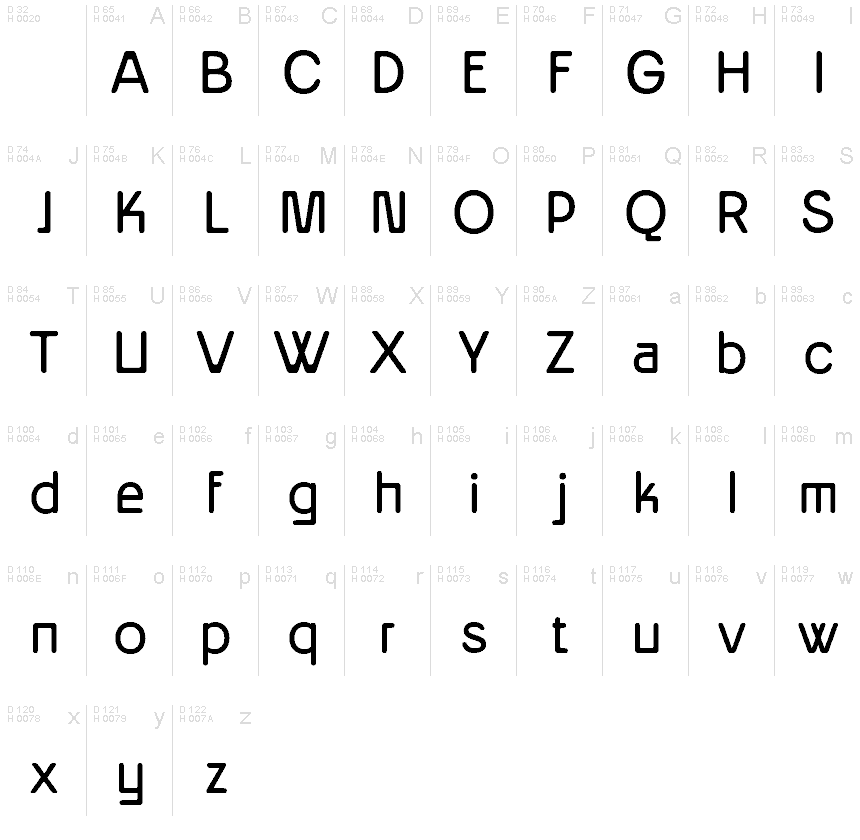
MaheniRounded-Regular Demo
Maheni Rounded font by Craft Supply Co. is a free contemporary display font featuring modern geometric letterforms and clean lines. Combining traditional and futuristic design elements, this approachable typeface is a great addition to any graphic designer’s set of tools for all types of contemporary applications.
Use it for logos, books covers, magazine covers, headlines, banners, website hero imagery with text, advertisements, posters with few words or even simpler cards. Brochures and slide presentations are other ideas where this typography will elevate the content.